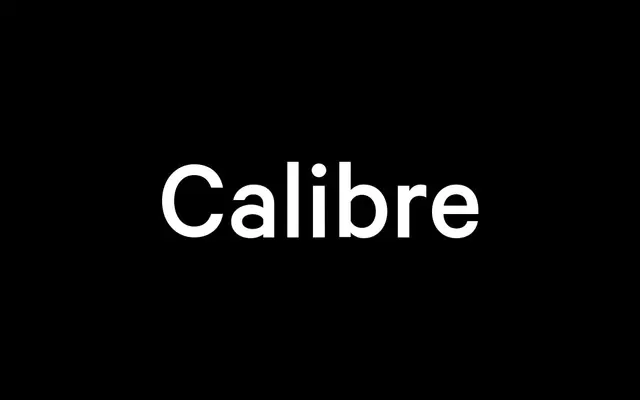
Calibre
Klim Type Foundry · Kris Sowersby · 2011
Calibre specimen from Klim Type Foundry
A crisp neo-grotesk drawn from West Berlin signage and Nebiolo's Recta, optically corrected for screens, identity and tech.
A neo-grotesque by Kris Sowersby drawn from lettering on West Berlin street signs, with the rationality of Nebiolo's Recta tempered by optical correction. Calibre was designed alongside Metric and shares its underlying geometry, but key letterforms take a more contemporary, crisp finish. Fourteen styles run from Thin to Black with matching italics, which is why Calibre keeps showing up in tech, fintech and product brands wanting a calm, engineered sans without the chill of pure geometry.
Klim classifies it as Modern: Lineal/Neo-grotesque; a neo-grotesk inspired by lettering on West Berlin street signs, taking rationality from Nebiolo's Recta and applying optical correction to the engineer's geometry.